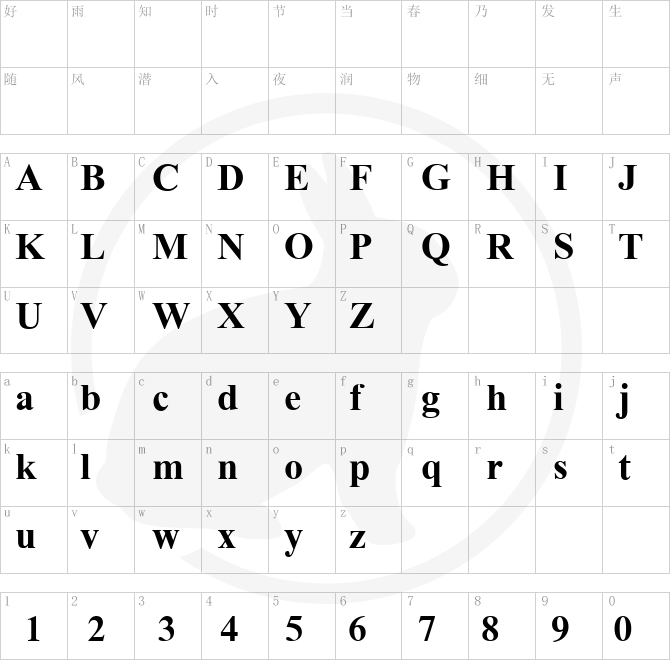
- Font Name:Galatia SIL
Galatia-SIL-Bold.ttf is a very beautiful artistic font, Galatia-SIL-Bold.ttf is widely used in the design and printing of various books and pictures,Galatia-SIL-Bold.ttf has a strong visual impact,Galatia-SIL-Bold.ttf is a commonly used font in newspapers, magazines and books, and is used in posters, e-commerce Poster design, store design, logo design, font design and other fields.Galatia-SIL-Bold.